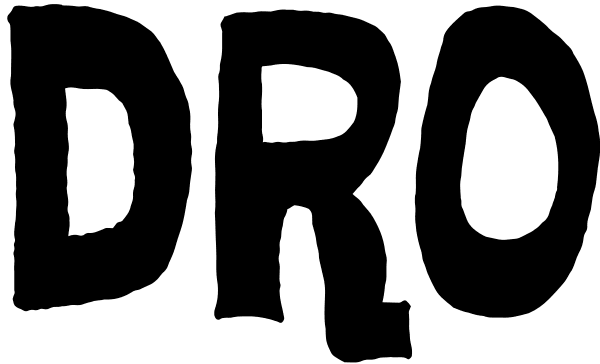
Dro
The Dro family is an all uppercase handmade font that resembles cut-out construction paper; Both fonts have 6 glyphs for each letter & 2 per number which are accessed by uppercase, lowercase, small caps & Contextual Alternates. Each font has 550...
Dro
Dro Fill